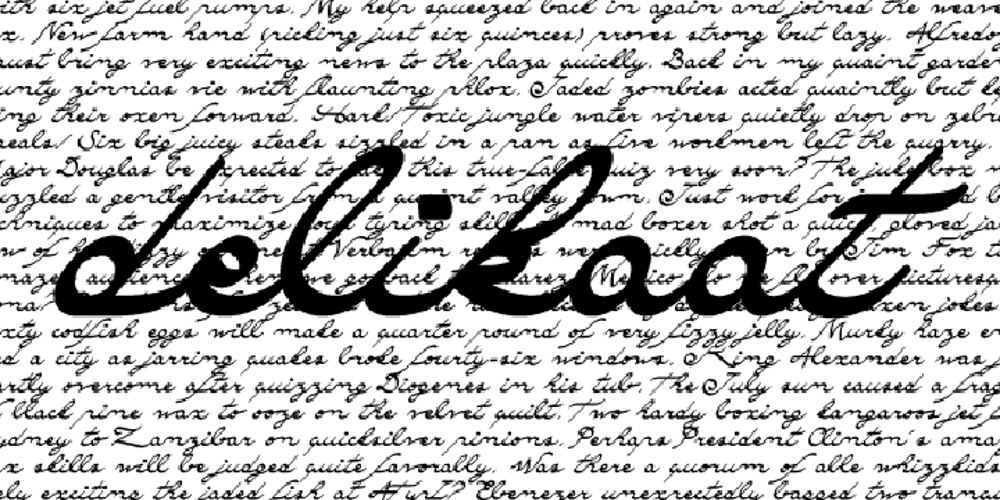
Delikaat Font Family was designed by Florent Courtaigne and published by Cubo Fonts. Delikaat contains 4 styles and family package options. Delikaat is made up of thin & thick strokes – a version of Cubo Font’s former Delicate. Most cursive fonts intend to create the look and feel of real handwriting: many letters have a specific drawing, following other letters that come before and after, or its position at the beginning or at the end of the word. “Delicate” resolved that problem thanks to the OpenType technology, and offers many discretionary ligatures (group of pre-drawn letters), adapted to numerous combinations. Therefore, it’s not only a decorative and calligraphic writing, but also a fluent and energetically one. In order to make the most of it, please activate your software’s OpenType features.